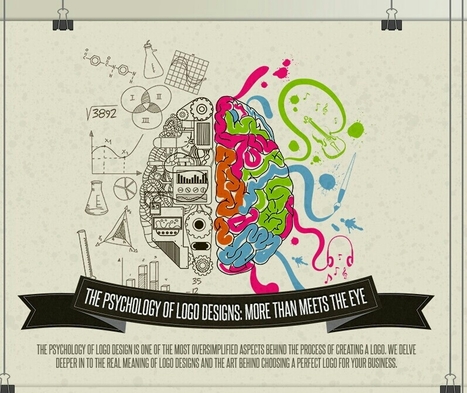
Psychology of Colors, Fonts & Shape in Logo Design
A logo is the strongest symbol of a brand. It's what consumers stop at when scanning the shelves, trying to choose between 20 seemingly similar products. These signs and symbols helps people to make decisions faster, and it helps people to feel like they made the right purchasing decision.
That means the colors, shapes, and fonts you choose for your client's brand image are essential to not only making them recognizable but also creating a sense or trust or authority or affordability or even excitement -- whatever emotions the company wants to be associated with. Colorfast created the below infographic to detailing how influential color, font, and shape choice is when crafting a logo. Learn the science behind how we interpret these small symbols...
Learn how consumers interpret color, font, and shape choice in logo designs.